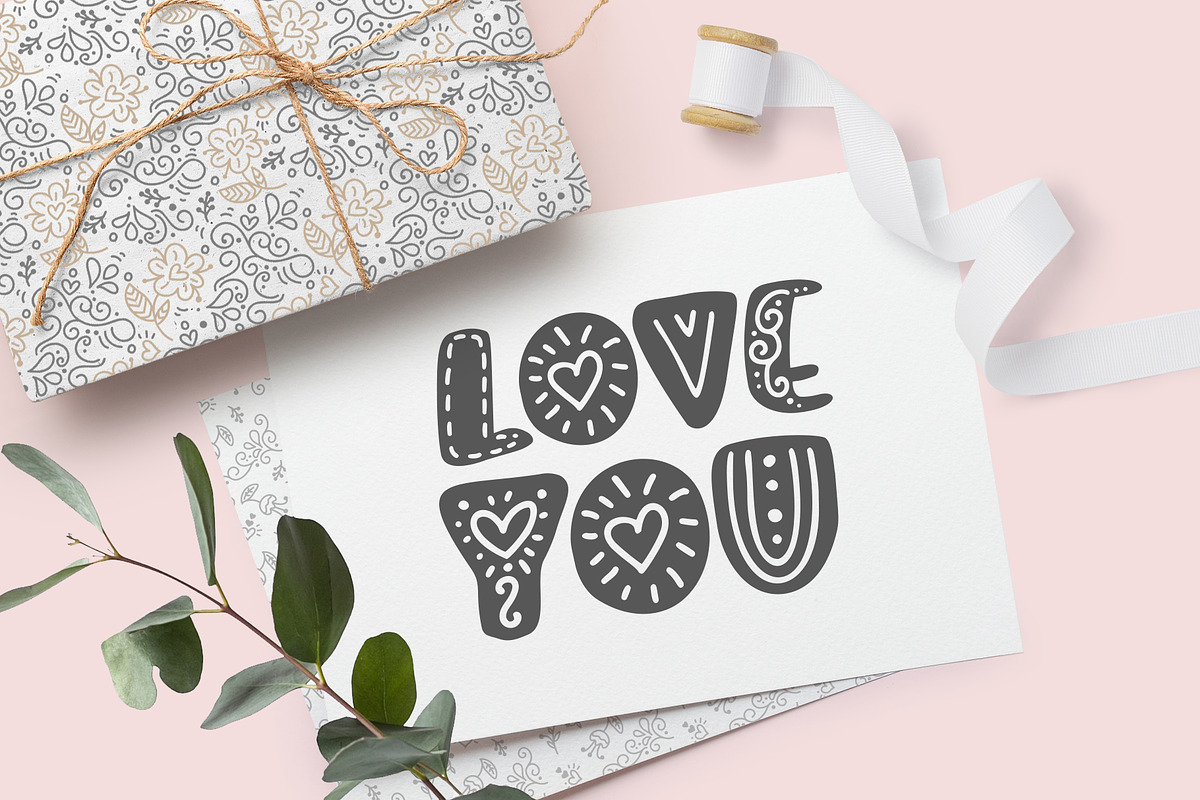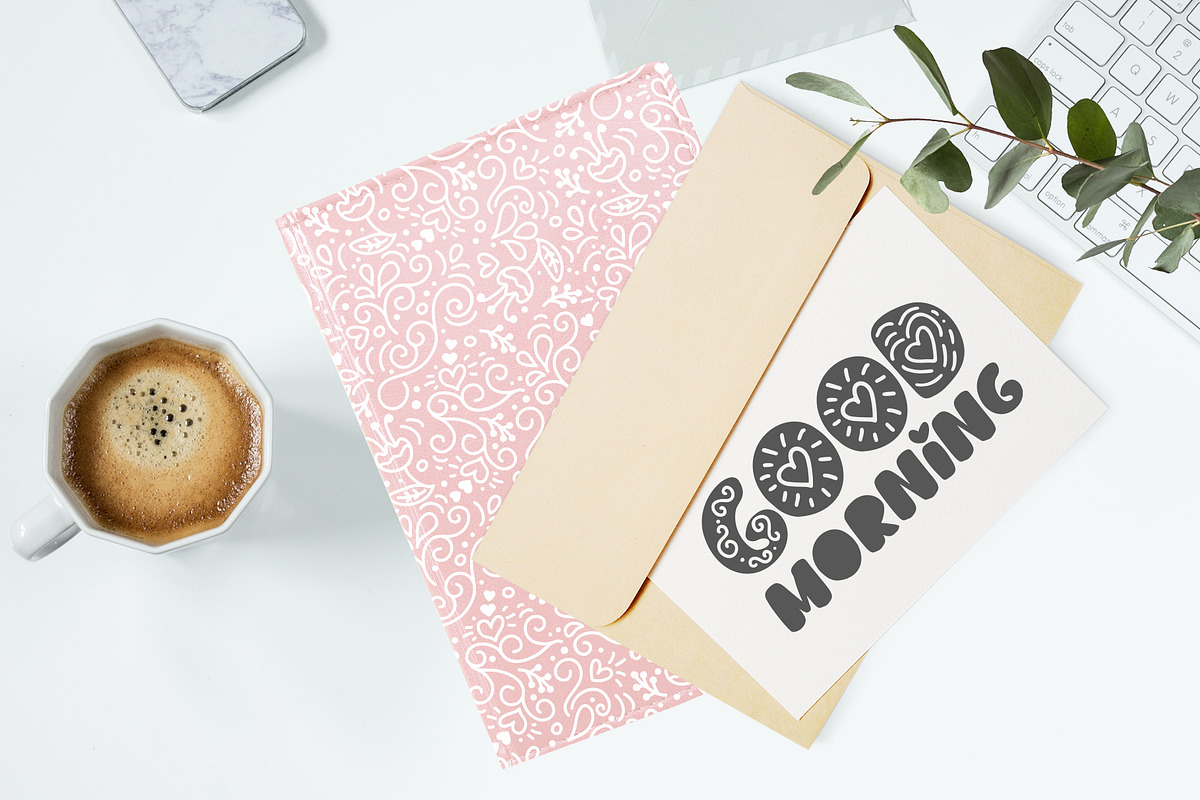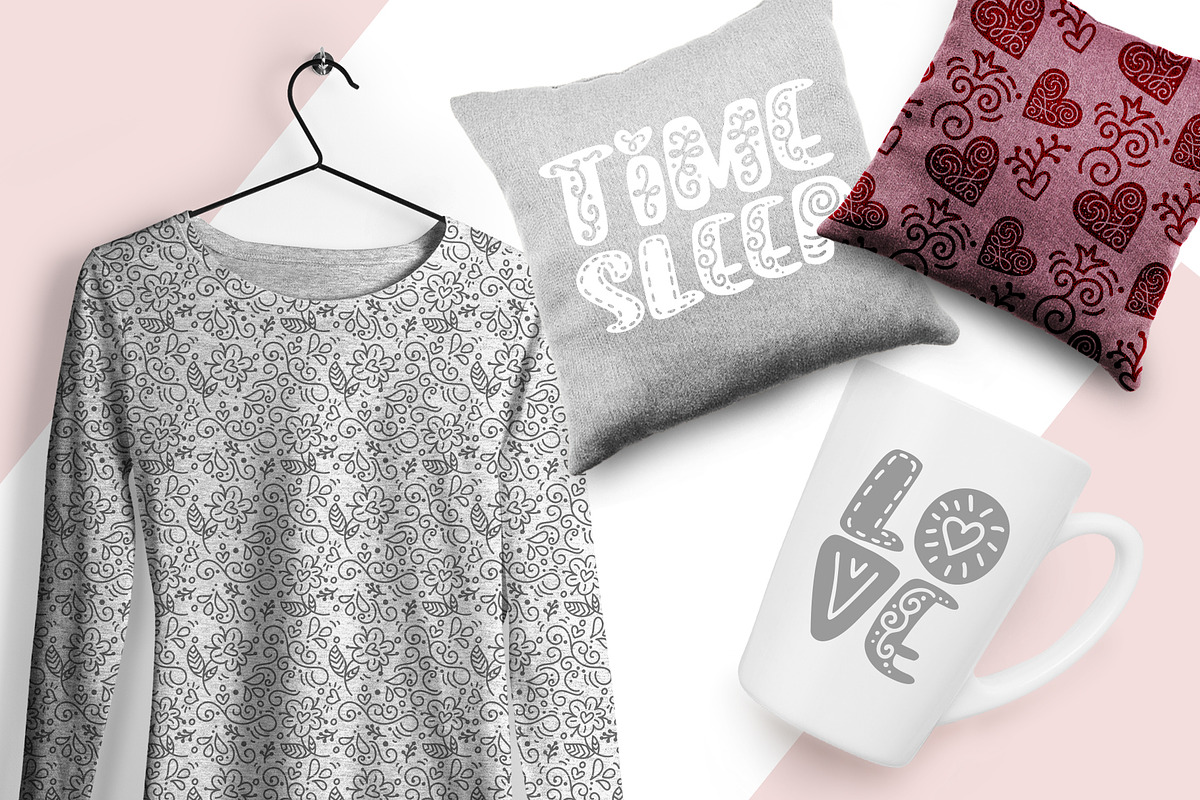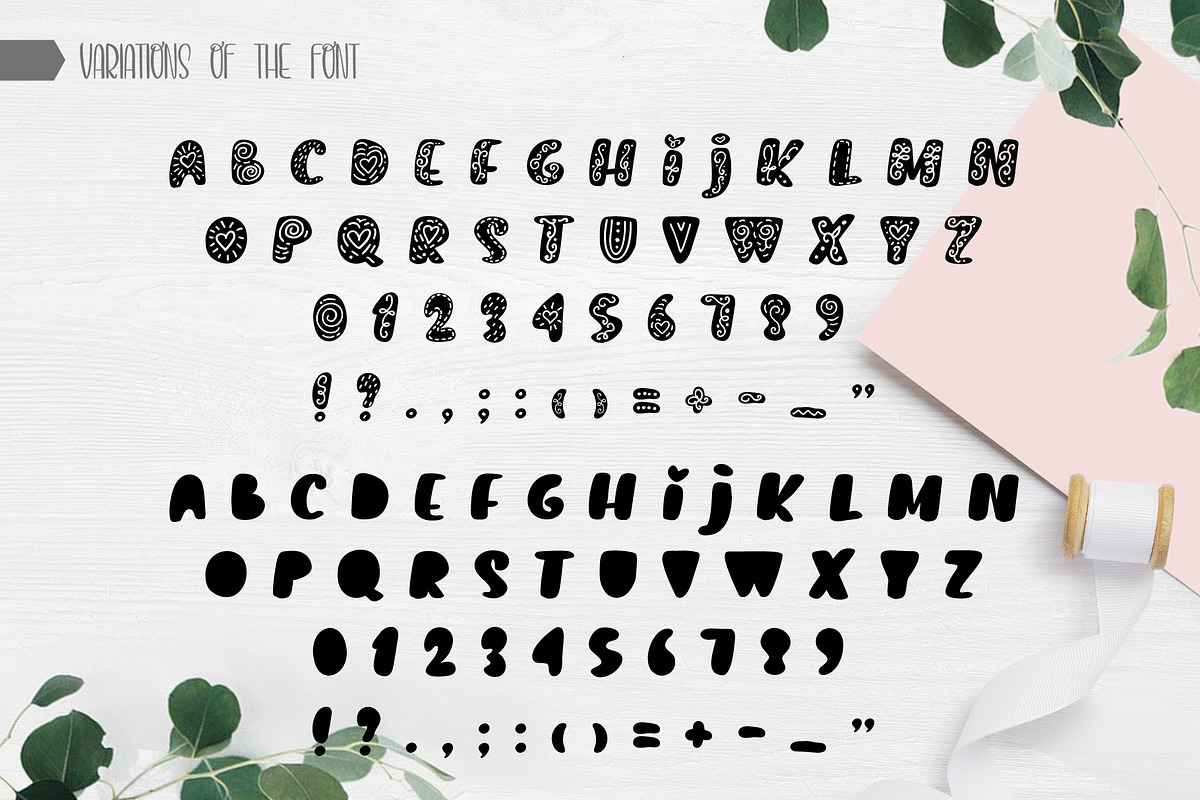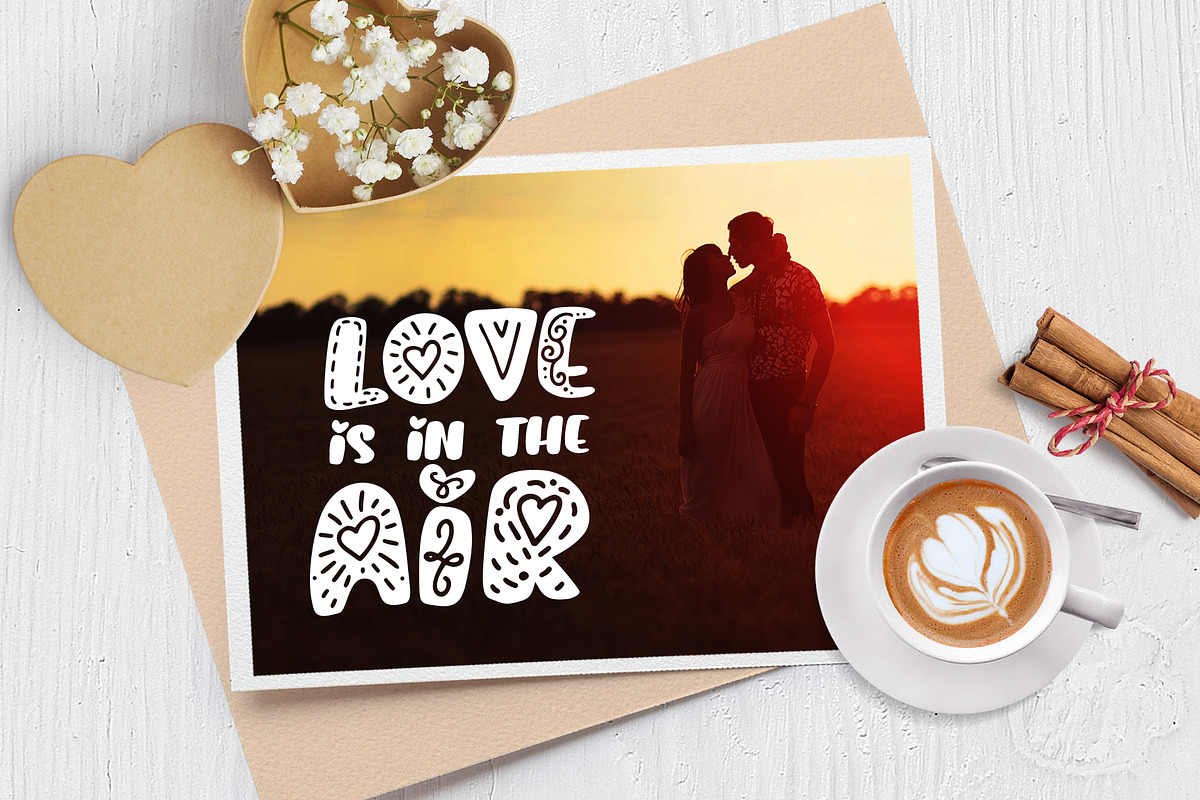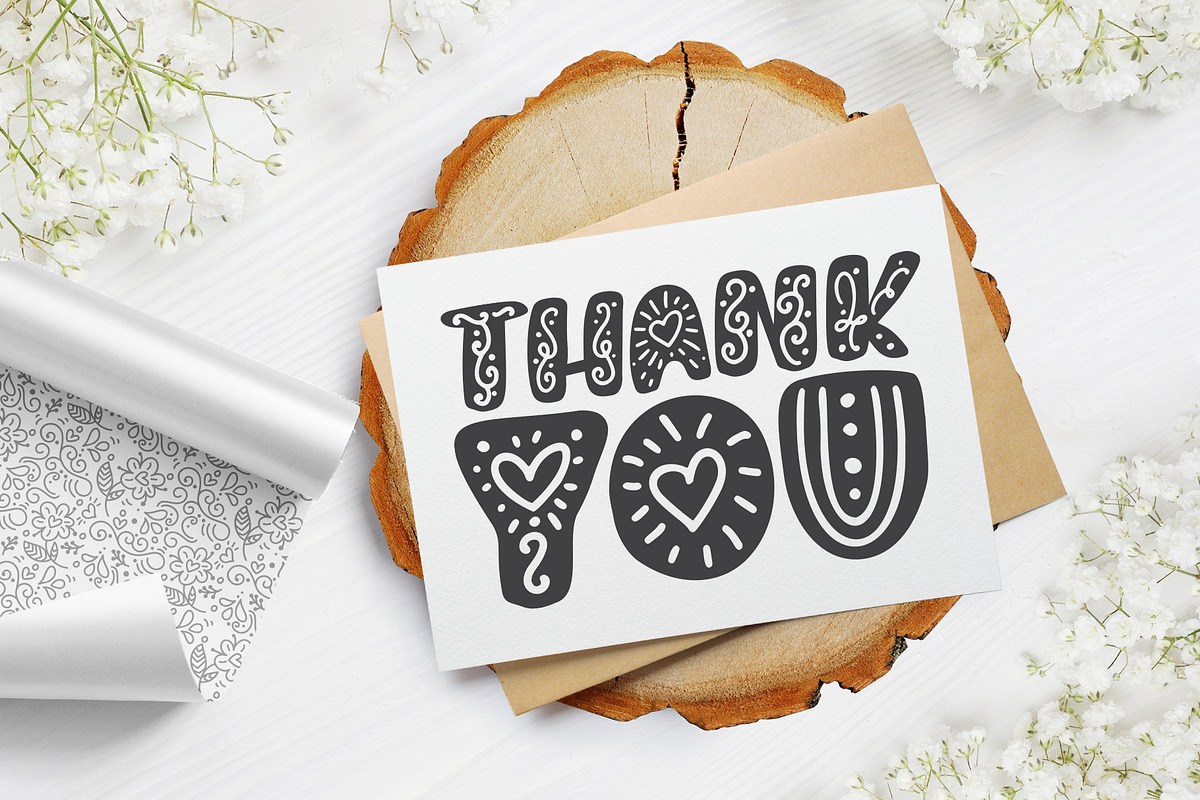
Soft vintage Scandinavian Decor Font
A funny scandinavian modern display font in two styles. Softvintage is the font is to help yourself while enjoying the world.
Softvintage is Regular and Bold unique handmade font which is well suited for the design of children's books, comics, antique subjects, other.
Titles for children albums, books, greeting cards (Christmas, Birthday, other holidays), photo overlays, logos, phrases, gift shops, presentation, Pinterest or Instagram.
Soft vintage Scandinavian Decor Font by Happy Letters fits naturally into Branding, posters, packaging, typography.